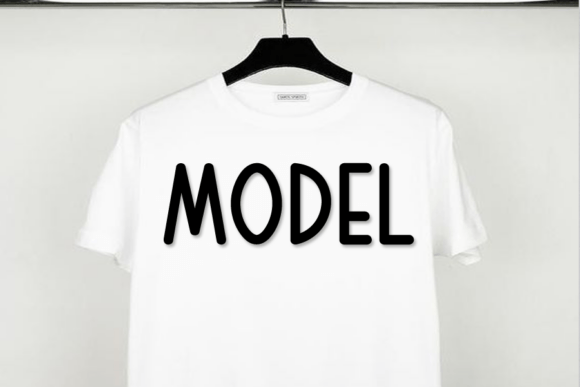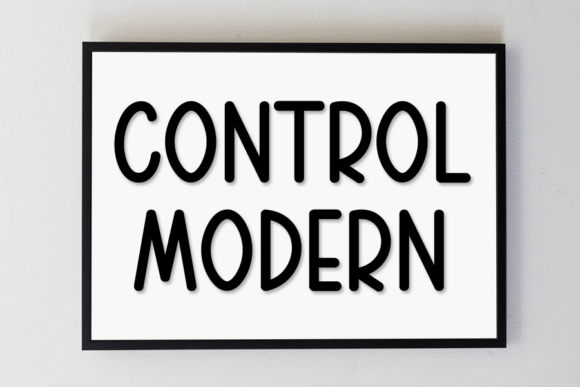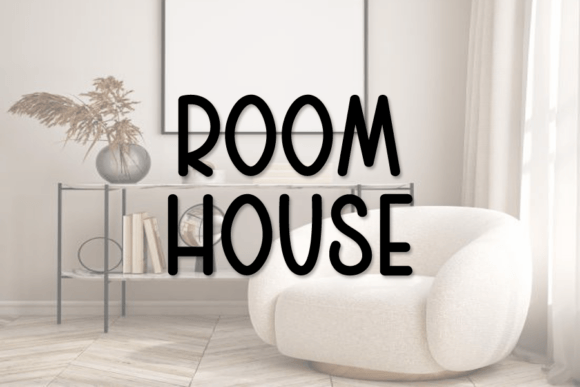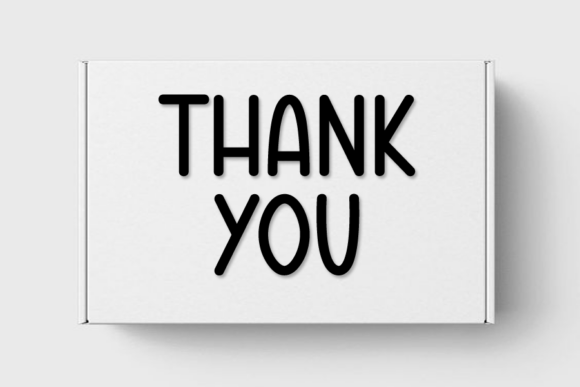
Introduction to Sampel Cardinal Font
Have you ever been brainstorming a new project, and suddenly, the perfect font pops into your head, transforming your idea into a masterpiece? For designers, this is the moment of magic where creativity knows no bounds. It’s the spark that ignites the flame of imagination, and Sampel Cardinal Font is that spark.
This fun and quirky display font is a game-changer for any design project. With its high-quality design and transparent background, Sampel Cardinal Font is an invaluable resource for designers. Whether you’re working on a logo, a headline, or a brand identity, this font has the potential to elevate your creation to new heights.
Key Features of Sampel Cardinal Font
- High-quality design resource with a unique, elegant style perfect for creative projects.
- Designed to be highly legible, making it suitable for a wide range of applications, from logos to typography-based designs.
- Part of a larger collection of fonts, offering endless possibilities for creative expression and experimentation.
Honest Review: Sampel Cardinal Font
One of the standout features of this font is its versatility. It’s perfect for use in creative projects where you need a clean and elegant look. The Sampel Cardinal Font also comes with a transparent background, which makes it easy to layer and manipulate in your design.
While the Sampel Cardinal Font is an excellent addition to any design toolkit, there are a few limitations to keep in mind: ⚠️
- Only available in a limited number of font styles
- Not suitable for use in formal or professional settings
Overall, I’m really impressed with the Sampel Cardinal Font. It’s a great design resource that’s perfect for creative projects where you need a clean and elegant look. While it may not be suitable for all design applications, it’s definitely worth checking out if you’re looking for a high-quality font at an affordable price.
Introduction to Sampel Cardinal Font
Sampel Cardinal Font is a high-quality, free design resource ideal for creative projects that require a unique and stylish touch. With its transparent background, this font is perfect for adding a touch of elegance to your designs.
Tips for Getting the Most Out of Sampel Cardinal Font
To get the most out of Sampel Cardinal Font, experiment with different font sizes, colors, and combinations to achieve the desired look for your project.
Common Use Cases for Sampel Cardinal Font
Sampel Cardinal Font is ideal for use in creative projects such as logo design, branding, and marketing materials, as well as in digital design projects like website design and social media graphics.